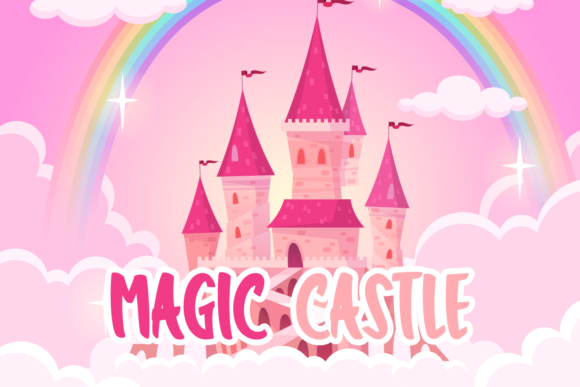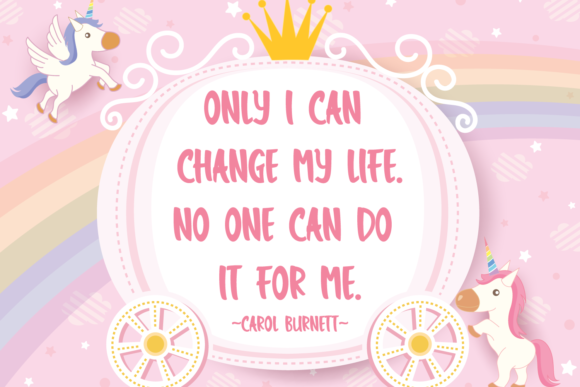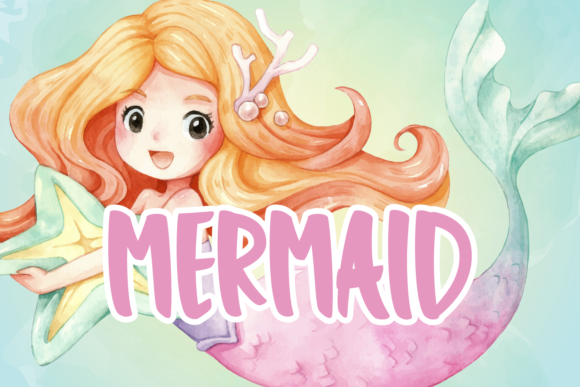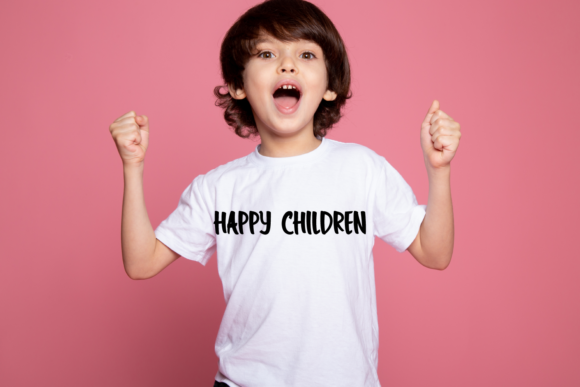
The Magical World of Castle Rainbows Font
I’ll never forget the time I was working on a children’s activity book project, and I just couldn’t find the right font to bring the illustrations to life. The project required a playful, yet authentic feel that would appeal to kids and parents alike. That’s when I stumbled upon Castle Rainbows Font, a cute display font that embodies playfulness and authenticity. It was love at first sight! 💕
An Honest Review of Castle Rainbows Font
- ✨ Playful and Whimsical Design: Castle Rainbows Font is perfect for any children’s activity or school project that requires a fun and lively feel.
- ✅ Ease of Use: The font is easy to read and works well in various design applications, from digital projects to print materials.
- 💫 Versatility: Castle Rainbows Font comes with a range of OpenType features, glyphs, and stylistic alternates that allow for creative experimentation.
While Castle Rainbows Font is an excellent choice for many projects, there are a few things to keep in mind:
- 🤔 Limited Use in Formal Designs: Due to its playful nature, Castle Rainbows Font might not be the best fit for formal designs or projects that require a more professional tone.
- ⚠️ Legibility at Small Sizes: As with many display fonts, Castle Rainbows Font may not be legible at very small sizes, so it’s best used at larger font sizes.
The Backstory of Castle Rainbows Font
Castle Rainbows Font was designed with the intention of creating a playful, yet authentic font that would bring joy to children’s projects and activities. The designer, inspired by the magic of childhood, aimed to create a font that would transport users to a world of wonder and imagination.